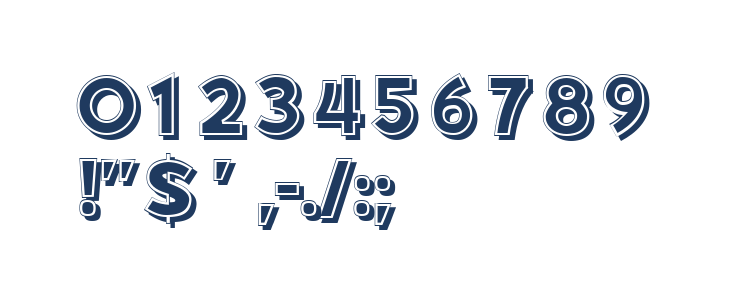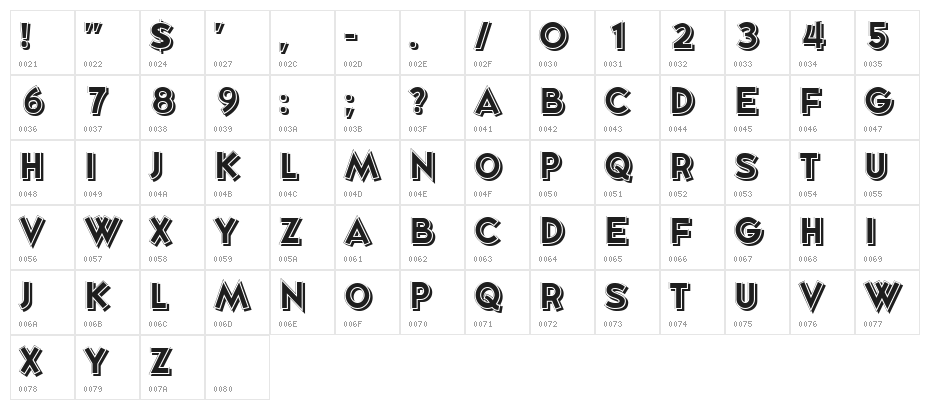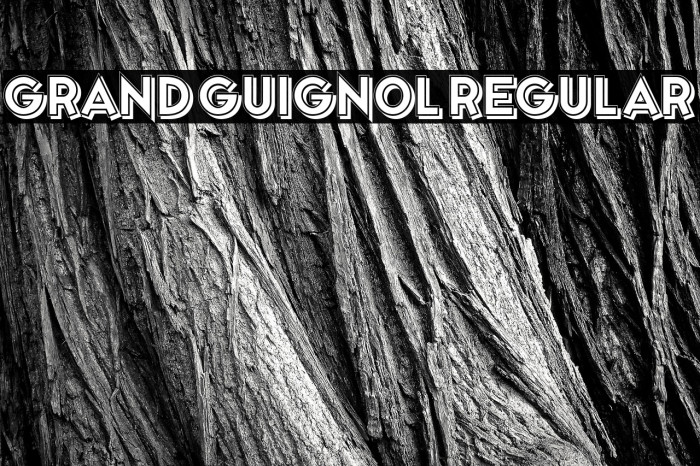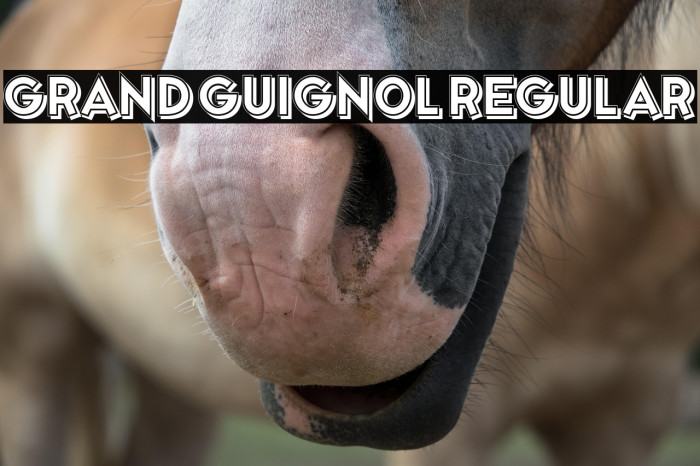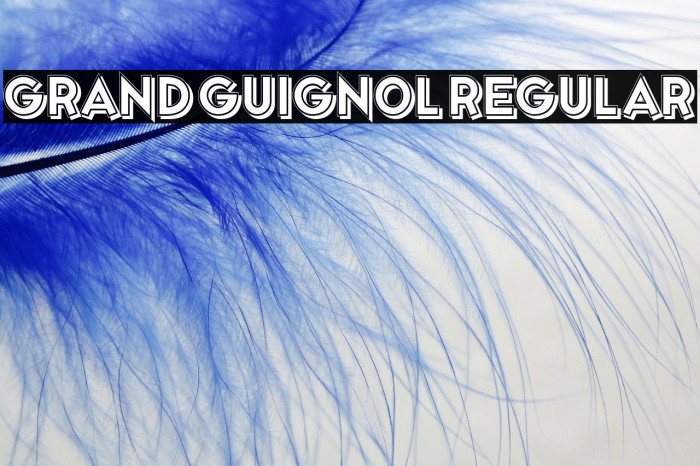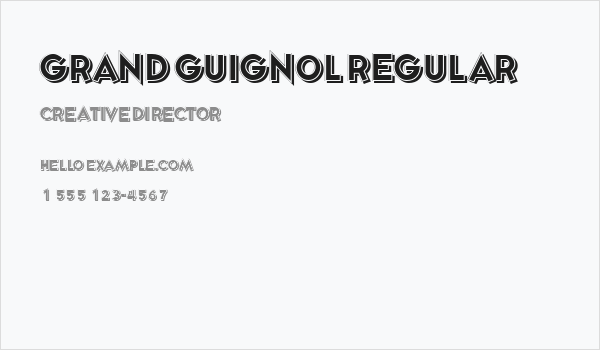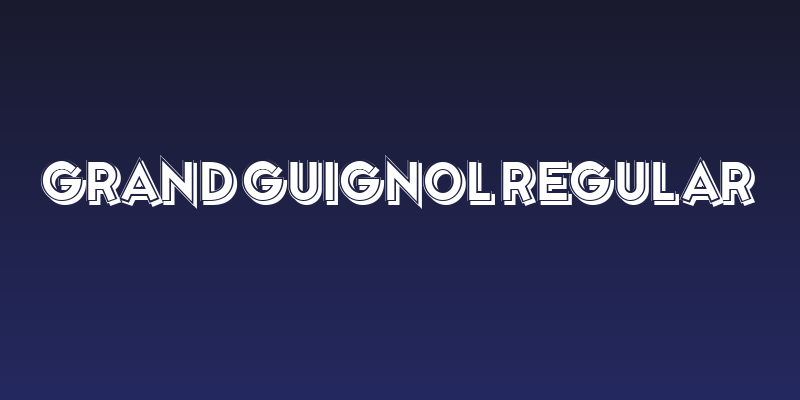
Grand Guignol Regular Font
Grand Guignol Regular Description
This font features a bold, dramatic style with a strong presence. The characters are outlined with a thick black border, giving them a three-dimensional effect. The interior of each letter is filled with a solid color, enhancing the contrast and making the text stand out. The sharp angles and geometric shapes contribute to its striking appearance, making it ideal for attention-grabbing designs. The font's overall aesthetic is reminiscent of vintage poster typography, with a modern twist that adds a unique flair. It is well-suited for projects that require a bold statement, such as headlines, posters, and branding materials.
Overall StyleVintage
Use CaseHeadlines, Posters, Branding
Proposed ProjectsIdeal for posters, headlines, branding, and any design requiring a bold statement.